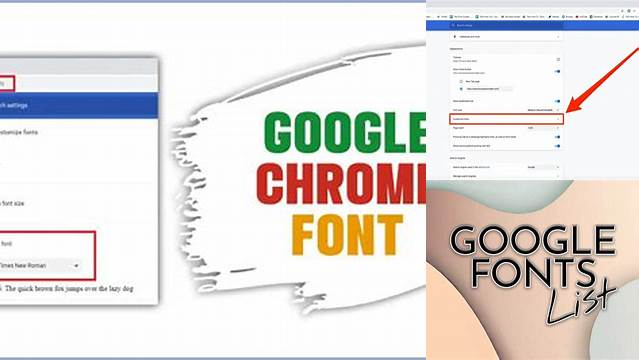
Customize Fonts In Chrome: Enhance Your Browsing Experience
Google Chrome, the world's most popular web browser, offers a plethora of customization options, and one of the most impactful is the ability to manage fonts in Google Chrome. Fonts play a crucial role in the overall browsing experience, influencing readability, aesthetics, and even branding. Understanding how to customize these Chrome fonts can significantly enhance your online interactions, whether you're a casual user or a web design professional. This comprehensive guide will walk you through everything you need to know about managing fonts in Chrome, from the basics of changing default settings to advanced techniques for troubleshooting font-related issues.
Why Customize Fonts in Chrome?
Before we dive into the how-to, let's explore the why. Why should you bother customizing your Google Chrome fonts? There are several compelling reasons:
- Readability: Default browser fonts might not be ideal for everyone. Some users find certain fonts easier to read than others, especially those with visual impairments. Adjusting the font settings in Chrome can dramatically improve readability and reduce eye strain.
- Aesthetics: Fonts contribute significantly to the visual appeal of websites and web applications. If you're not a fan of the default Chrome font, you can change it to something that better suits your personal taste. This customization allows you to create a more visually pleasing browsing experience.
- Branding: For web developers and designers, maintaining consistent branding across different browsers is essential. Customizing Chrome fonts ensures that websites are displayed as intended, preserving the brand's identity and visual integrity. This is particularly important when dealing with specific font requirements or unique typography.
- Accessibility: Customized fonts can significantly improve accessibility for users with visual impairments or reading disabilities. Options like larger font sizes or specific font styles (such as dyslexia-friendly fonts) can make web content more accessible and inclusive. This is crucial for creating a user-friendly and equitable online experience.
- Personal Preference: Ultimately, customizing fonts in Google Chrome boils down to personal preference. Just as you might customize the theme or extensions in your browser, changing the font is another way to make your browsing experience more personalized and enjoyable. It's about creating an environment that feels comfortable and caters to your individual needs.
Changing Default Fonts in Google Chrome
The most straightforward way to manage fonts in Chrome is by changing the default font settings. This allows you to set a preferred font for various types of content, ensuring a consistent reading experience across different websites. Here’s a step-by-step guide:
Step 1: Access Chrome Settings
First, you need to access Chrome’s settings menu. There are a couple of ways to do this:
- Method 1: Click on the three vertical dots (the “Customize and control Google Chrome” menu) in the top-right corner of the browser window. From the dropdown menu, select “Settings.”
- Method 2: Type
chrome://settings
in the address bar and press Enter. This will directly open the Chrome settings page.
Both methods will take you to the same settings interface, where you can adjust various aspects of your browsing experience, including font settings.
Step 2: Navigate to Appearance Settings
Once you’re in the settings menu, look for the “Appearance” section. This section contains options related to how Chrome looks, including themes, font sizes, and page zoom. Click on “Appearance” to expand its options.
Step 3: Customize Fonts
Within the “Appearance” section, you’ll find an option labeled “Customize fonts.” Click on this to open the font settings panel. Here, you'll see several options for customizing Chrome fonts:
- Font size: This allows you to adjust the overall font size used by Chrome. You can choose from “Very small,” “Small,” “Medium” (default), “Large,” and “Very large.” Select the size that feels most comfortable for your eyes.
- Minimum font size: This setting ensures that text on web pages never appears smaller than the specified size, even if the website’s code dictates a smaller font. This is particularly useful for improving readability on websites with small text.
- Standard font: This is the default font used for regular text on web pages. You can choose from a variety of installed fonts on your system. Common choices include Arial, Times New Roman, and Calibri.
- Serif font: Serif fonts have small decorative strokes at the ends of letters. This setting allows you to specify the default serif font used by Chrome. Popular serif fonts include Times New Roman and Georgia.
- Sans-serif font: Sans-serif fonts lack these decorative strokes, giving them a cleaner, more modern look. You can choose your preferred sans-serif font here. Common sans-serif fonts include Arial and Helvetica.
- Fixed-width font: Fixed-width fonts, also known as monospace fonts, have characters that each occupy the same horizontal space. These fonts are often used for displaying code or in terminal applications. Examples include Courier New and Consolas.
Step 4: Select Your Preferred Fonts
Now, it’s time to select your preferred fonts. Click on the dropdown menus next to each font type (Standard, Serif, Sans-serif, Fixed-width) and choose the font that you want to use. Chrome will display a preview of each font, allowing you to see how it looks before making your selection.
Experiment with different font combinations until you find a setup that you like. Consider factors such as readability, aesthetics, and personal preference. Once you've made your selections, Chrome will automatically apply the changes. There's no need to save or confirm your settings; the changes take effect immediately.
Step 5: Adjust Font Size
In addition to choosing the fonts themselves, you can also adjust the overall font size and minimum font size. Use the dropdown menus for these settings to select the sizes that work best for you. If you find that text on websites is generally too small, increasing the font size can make a significant difference in readability.
The “Minimum font size” setting is particularly useful for ensuring that text remains legible, even on websites that use small font sizes. By setting a minimum size, you can prevent text from becoming too tiny to read comfortably.
Advanced Font Management in Chrome
While changing the default fonts in Google Chrome is a good starting point, there are more advanced techniques you can use to fine-tune your font experience. These include using browser extensions, managing custom fonts, and troubleshooting common font-related issues.
Using Browser Extensions for Font Customization
Chrome extensions can provide additional control over fonts on web pages. Several extensions are available that allow you to override website fonts, customize font styles, and even inject custom CSS to modify font appearance. Here are a couple of popular options:
- Font Changer: This extension allows you to quickly change the font on any website. You can select from a variety of installed fonts or specify a custom font using CSS. Font Changer provides a simple and intuitive interface for adjusting font styles on the fly.
- Stylebot: Stylebot is a more powerful extension that allows you to customize the appearance of websites using CSS. With Stylebot, you can change fonts, colors, layouts, and more. This extension is ideal for users who want a high degree of control over website aesthetics.
To use these extensions, simply install them from the Chrome Web Store and follow their respective instructions. Most font customization extensions will add an icon to your browser toolbar, allowing you to easily access their settings and make changes to website fonts.
Managing Custom Fonts
In some cases, you might want to use custom fonts that are not installed on your system. This is common for web developers who want to use specific fonts for their projects or for users who simply prefer a particular font that is not available by default. There are a couple of ways to manage custom fonts in Chrome:
- Using the
font-face
rule in CSS: If you're a web developer, you can use the@font-face
rule in CSS to specify custom fonts for your website. This rule allows you to define a font family and point to the font file (e.g., TTF, OTF, WOFF) that Chrome should use. This approach ensures that your website displays correctly, even if users don't have the font installed on their system. - Installing fonts on your operating system: Another way to use custom fonts in Chrome is to install them on your operating system. Once a font is installed, it becomes available to all applications, including Chrome. To install a font, simply double-click the font file and follow the on-screen instructions. Keep in mind that installing too many fonts can slow down your system, so it's best to install only the fonts you need.
Troubleshooting Font-Related Issues
Occasionally, you might encounter issues related to fonts in Chrome. These issues can range from incorrect font rendering to missing or distorted characters. Here are some common problems and how to troubleshoot them:
- Fonts not displaying correctly: If fonts on a website appear blurry, distorted, or don't match the intended style, there could be a few causes. First, make sure that the website is using web fonts correctly. Check the website's CSS to see if the
@font-face
rule is properly configured. If the issue persists, try clearing your browser cache and cookies, as this can sometimes resolve font rendering problems. - Missing characters: Sometimes, certain characters might not display correctly if the font being used doesn't support them. This is common with specialized characters or symbols. To fix this, try changing the font to one that includes the missing characters. You can also use a font that supports Unicode, which includes a wide range of characters.
- Font size issues: If the font size on a website is too small or too large, you can adjust it using Chrome's font size settings. As mentioned earlier, you can find these settings in the “Appearance” section of Chrome’s settings menu. You can also use the Ctrl + and Ctrl - keyboard shortcuts to zoom in and out on a webpage, which can help with readability.
- Font conflicts: In rare cases, conflicting fonts can cause display issues. If you suspect a font conflict, try disabling custom fonts or extensions that modify font settings. You can also try resetting Chrome to its default settings to see if that resolves the problem.
The Importance of Font Choice
Choosing the right font is crucial for creating a positive user experience. A well-chosen font can enhance readability, convey a specific tone or mood, and reinforce branding. Here are some key considerations when selecting fonts for web use:
- Readability: The most important factor is readability. Choose fonts that are easy to read on screens, especially for body text. Sans-serif fonts like Arial, Helvetica, and Open Sans are generally good choices for body text, while serif fonts like Times New Roman and Georgia can work well for headings and titles.
- Font pairing: Consider how different fonts work together. Pairing fonts effectively can create visual interest and hierarchy on a page. A common approach is to pair a sans-serif font with a serif font, but there are many other combinations that can work well. Use online resources and tools to explore font pairing options.
- Branding: Your font choices should align with your brand's identity. If you have brand guidelines, be sure to follow them when selecting fonts for your website. Using consistent fonts across your website and other marketing materials helps to create a cohesive brand image.
- Accessibility: Ensure that your font choices are accessible to all users, including those with visual impairments. Use sufficient contrast between text and background colors, and avoid using fonts that are too thin or decorative, as these can be difficult to read. Consider using dyslexia-friendly fonts if accessibility is a major concern.
Customizing fonts in Google Chrome is a simple yet powerful way to enhance your browsing experience. Whether you want to improve readability, match your personal aesthetic preferences, or ensure consistent branding, Chrome offers a range of options for managing fonts. By following the steps outlined in this guide, you can take control of your font settings and create a browsing environment that suits your needs. Remember, the right font can make all the difference in how you perceive and interact with online content, so take the time to explore your options and find the fonts that work best for you.
From basic adjustments to advanced techniques, understanding Google Chrome fonts is essential for anyone who spends a significant amount of time online. So go ahead, experiment with different fonts, and discover the perfect typography for your digital world. By mastering the art of Chrome font customization, you can transform your browsing experience from ordinary to extraordinary.